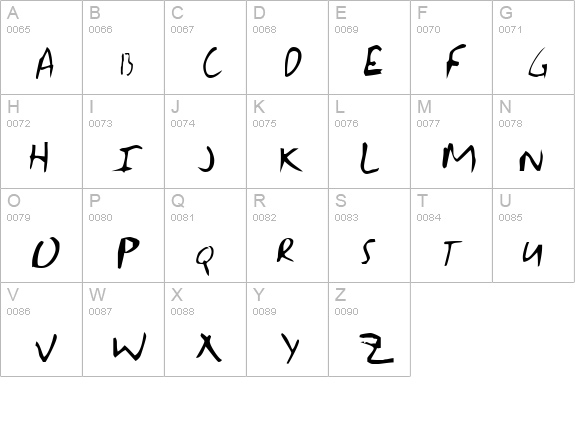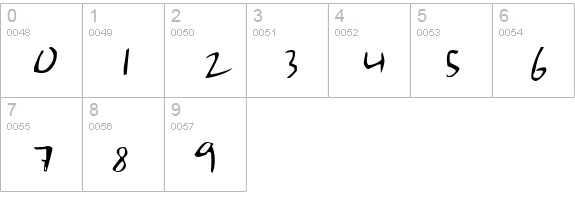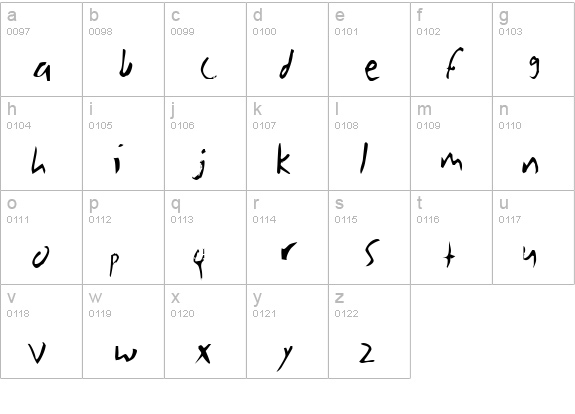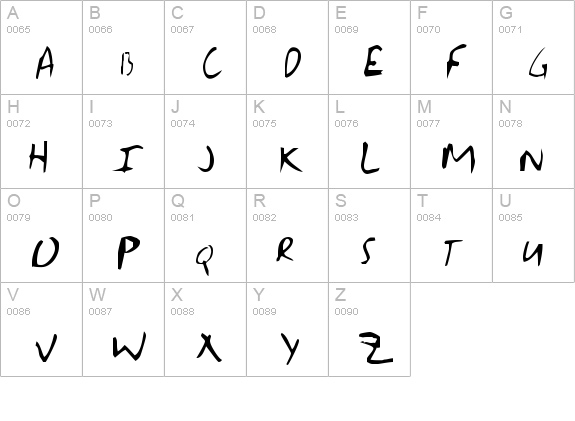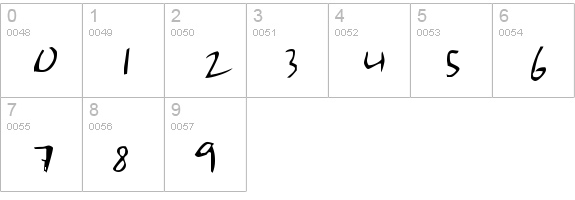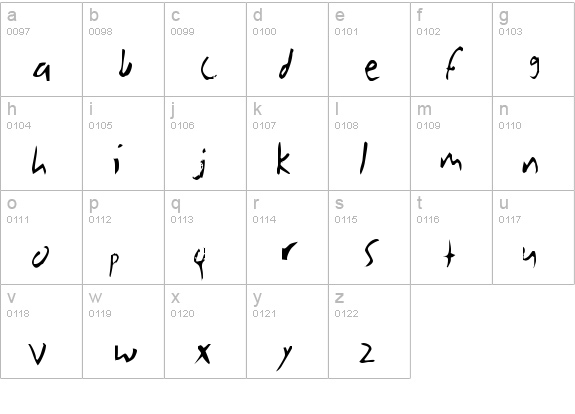
Grasko Font Details
Introducing Grasko font, a versatile and stylish typeface that is sure to make a bold statement in any design project. With its sleek lines and modern look, Grasko font exudes a sense of sophistication and elegance. Whether you're designing a logo, creating a poster, or crafting a website, this font will elevate your work to the next level. The best part? Grasko font is completely free to download at FontsMarket.com. Yes, you read that right - you can get your hands on this stunning font at no cost at all. Don't miss out on the opportunity to enhance your designs with Grasko font. Download it today and see the difference it can make in your creative projects.